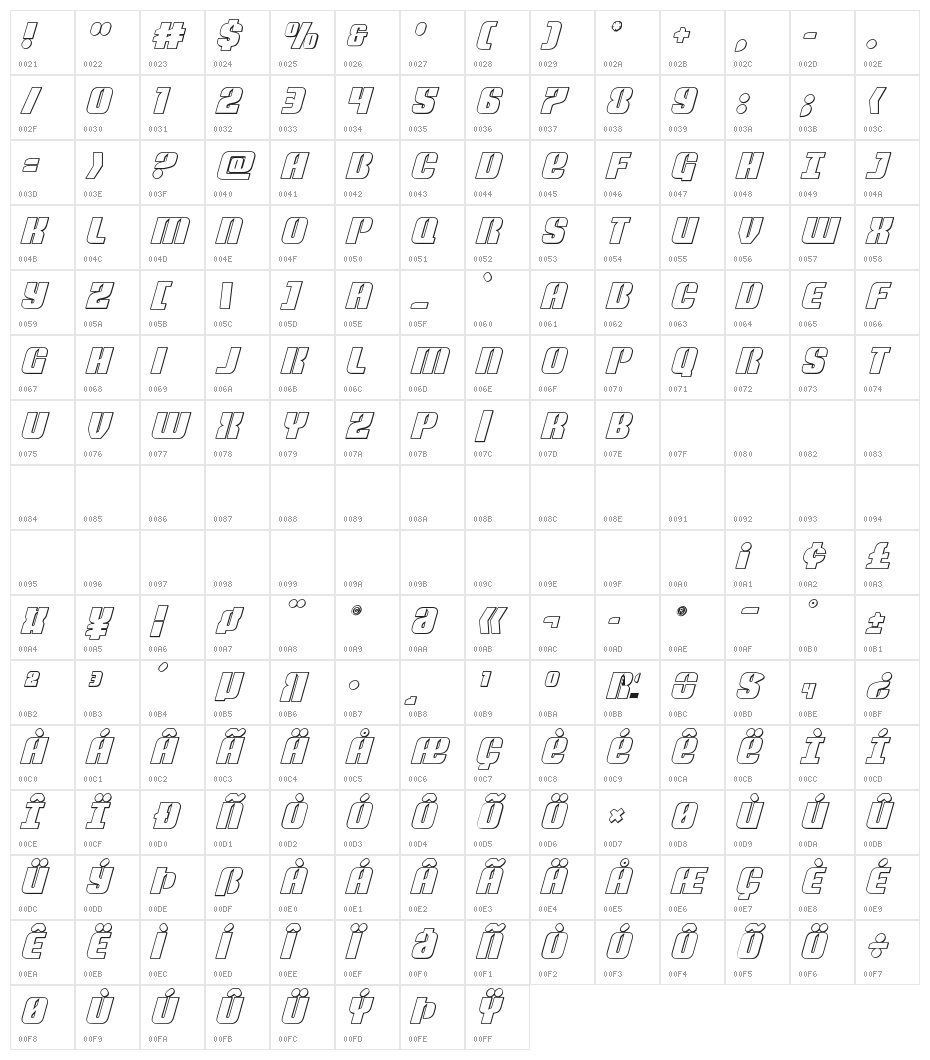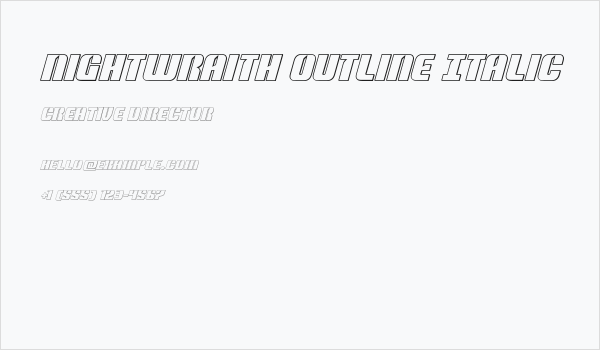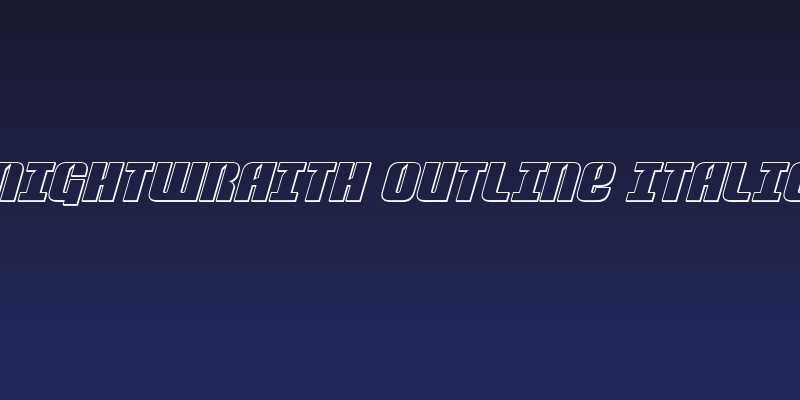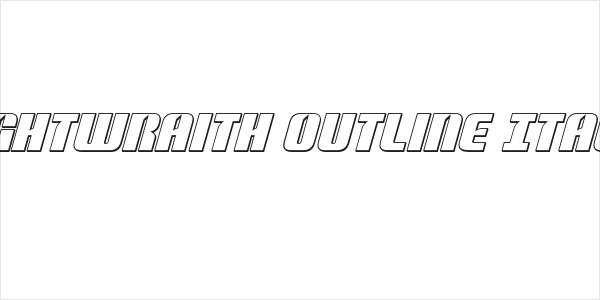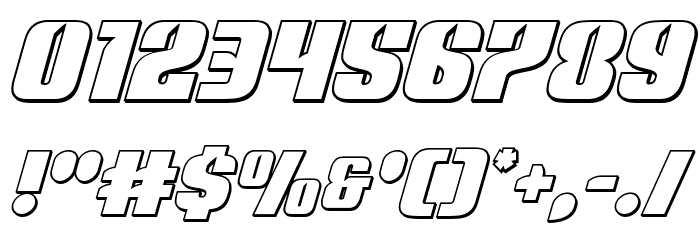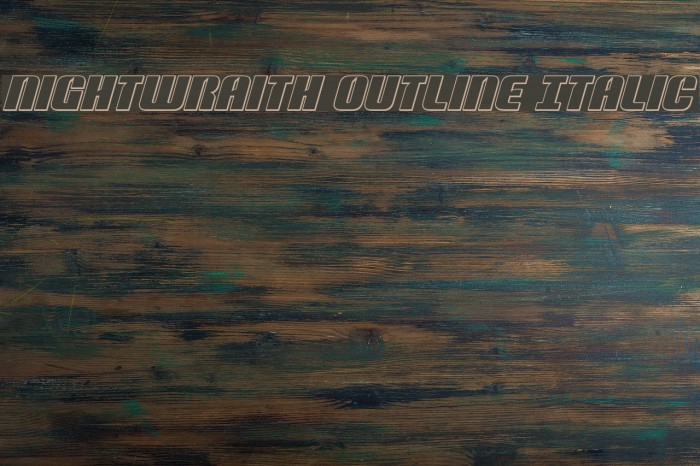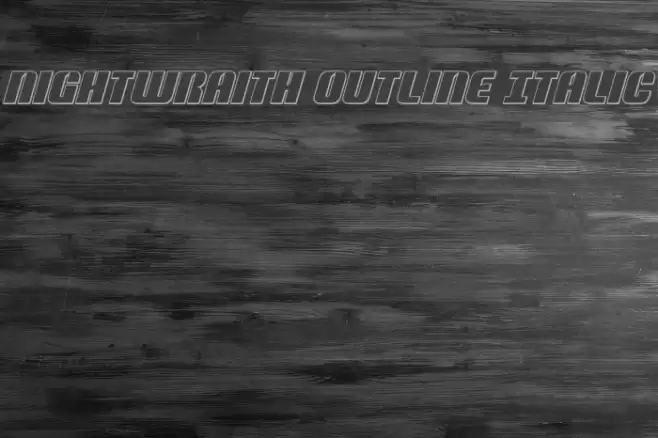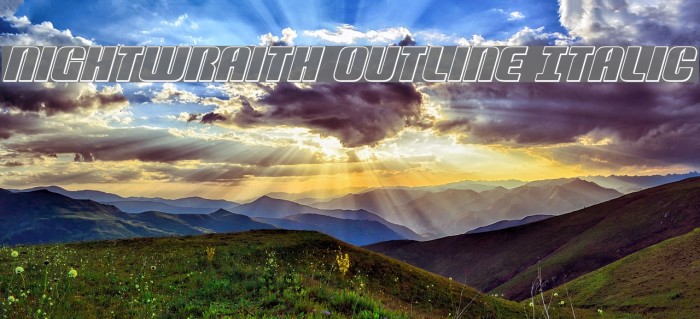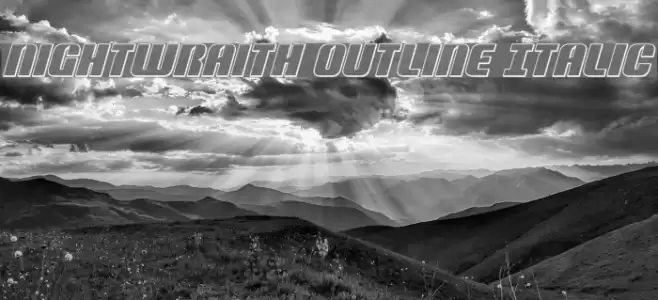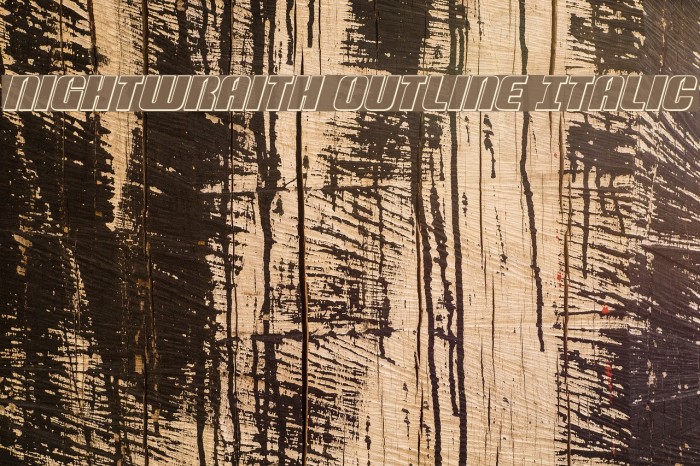
Nightwraith Outline Italic Font
Nightwraith Outline Italic Description
This font features a bold, outline style with a distinct italic slant, giving it a dynamic and modern appearance. The characters are uppercase and lowercase, with numbers and a variety of special symbols. The outline design adds a unique touch, making it stand out in any design project. The strokes are consistent in width, providing a uniform look across all characters. Its geometric shapes and clean lines make it suitable for contemporary designs, while the italic angle adds a sense of motion and energy.
| Proposed Projects | Ideal for posters, logos, branding, and headlines where a striking and modern look is desired. |